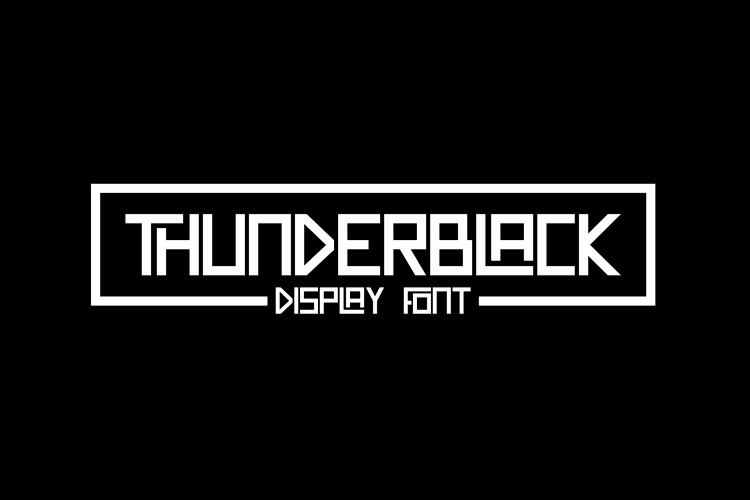
Thunderblack
Thunderblack is a type of display letter that is made with firm lines and angles. This font is very suitable when combined with various types of typography.